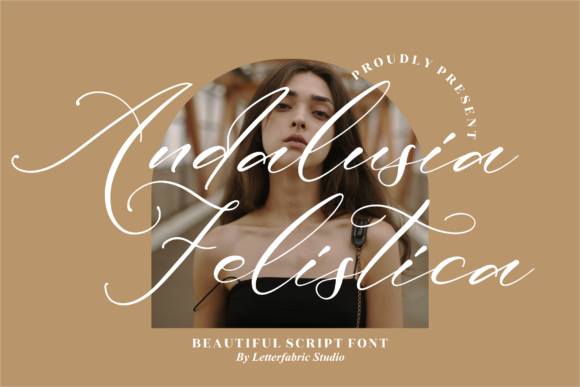
Unlocking the Elegance of Andalusia Felistica Font
There’s nothing quite like the thrill of creating something from scratch. The blank canvas, the endless possibilities, and the rush of adrenaline as your ideas start to take shape. For designers, this moment is a daily occurrence, and it’s what drives us to push the boundaries of creativity and style. But, let’s be honest, sometimes our designs need a little something extra to elevate them to the next level. That’s where the Andalusia Felistica Font comes in – a delicate script font that exudes elegance and sophistication.
Andalusia Felistica Font is a beautifully crafted typeface designed to add a touch of refinement to your designs. With its PUA encoding, accessing all the glyphs and swashes is a breeze, allowing you to create stunning, one-of-a-kind pieces that showcase your unique style. Whether you’re a seasoned pro or just starting out, the Andalusia Felistica Font is an invaluable addition to your design toolkit, guaranteed to take your projects to new heights of beauty and sophistication.
Andalusia Felistica Font Key Features
- Font Family: Andalusia Felistica
- Unique Characteristics: Hand-drawn, elegant script font with a vintage feel; ideal for wedding invitations, quotes, and other decorative text
- Number of Glyphs: 720
- Font Weight: Regular, Bold
Andalusia Felistica Font Review
I recently had the chance to work with the Andalusia Felistica font, and I must say it’s an interesting mix of styles. One thing that works well is the elegant and refined feel it brings to text. ✨ The curves are smooth, and the proportions are well-balanced, making it suitable for titles and headings. ✨ I also appreciate the subtle flair it adds to text, giving it a sense of sophistication.
However, I do have some reservations about its limitations. ⚠️ One issue is that the font may be too ornate for certain contexts, such as body text or websites with a more minimalist aesthetic. ⚠️ Additionally, the font’s uniqueness can sometimes make it feel overpowered or dominating, which may not be suitable for all designs.
Overall, I’d say the Andalusia Felistica font is a great choice for projects that require a touch of elegance and refinement. But, as with any font, it’s essential to consider the context and balance it with other design elements to avoid overwhelming the user.
- Pros: Elegant feel, smooth curves, refined proportions
- Cons: May be too ornate for certain contexts, can feel overpowering
Tip: Use the Andalusia Felistica Font for titles and headings to add a touch of elegance to your designs.
Tip: Use the Andalusia Felistica Font for creative typography projects, such as posters or brochures.
Tip: Use the Andalusia Felistica Font for presentations or documents that require a touch of sophistication.
The Andalusia Felistica Font is ideal for:
- Travel and tourism marketing
Alternatives to Andalusia Felistica Font
Great Vibes is a modern, elegant script font ideal for creating a luxurious and sophisticated look. It’s perfect for headings, titles, and quotes. Great Vibes is more refined and polished compared to Andalusia Felistica, which has a more rustic and vintage feel.
Carolyna Pro is a high-end script font that exudes luxury and sophistication. It’s ideal for branding, packaging, and editorial design. While Andalusia Felistica has a more playful and whimsical feel, Carolyna Pro is more formal and elegant.
Alex Brush is a beautiful, elegant script font that’s perfect for creating a touch of sophistication and refinement. It’s ideal for headings, titles, and quotes, and is more delicate and refined compared to Andalusia Felistica, which has a more robust and rustic feel.
Dancing Script is a lively and elegant script font that’s perfect for creating a sense of movement and energy. It’s ideal for headings, titles, and quotes, and is more playful and dynamic compared to Andalusia Felistica, which has a more static and vintage feel.
What is the recommended font size for optimal readability with the Andalusia Felistica Font?
For optimal readability, we recommend using font sizes between 12pt and 24pt. At smaller font sizes, the font may become difficult to read, while larger font sizes may be too overwhelming. Experiment with different font sizes to find the perfect balance for your design.